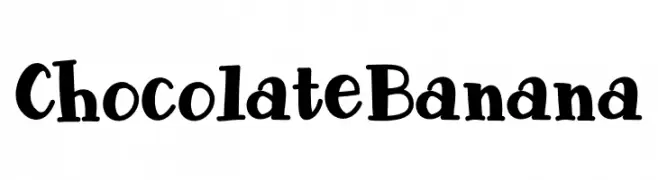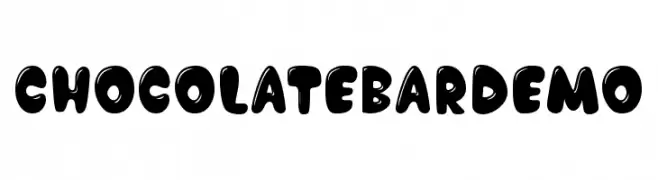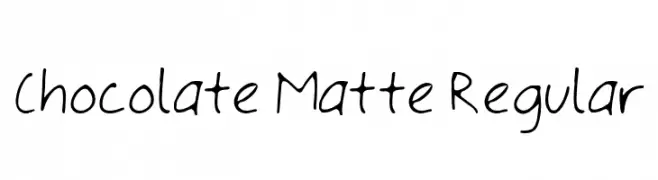
A playful, handwritten font with an informal and friendly style.
A decorative, italic font with a multi-line, three-dimensional effect.
A decorative font with multiple parallel lines forming each character, offering a bold and intricate appearance.
A playful, hand-drawn font with bold, rounded characters and a whimsical style.
A playful, handwritten font with bold strokes and a lively, dynamic style.
A bold, cursive script font with a modern, energetic style.
A bold, cursive font with playful and dynamic flow.
A bold, chunky font with a playful, vintage style.
A bold, expressive handwritten font with fluid strokes and a modern flair.